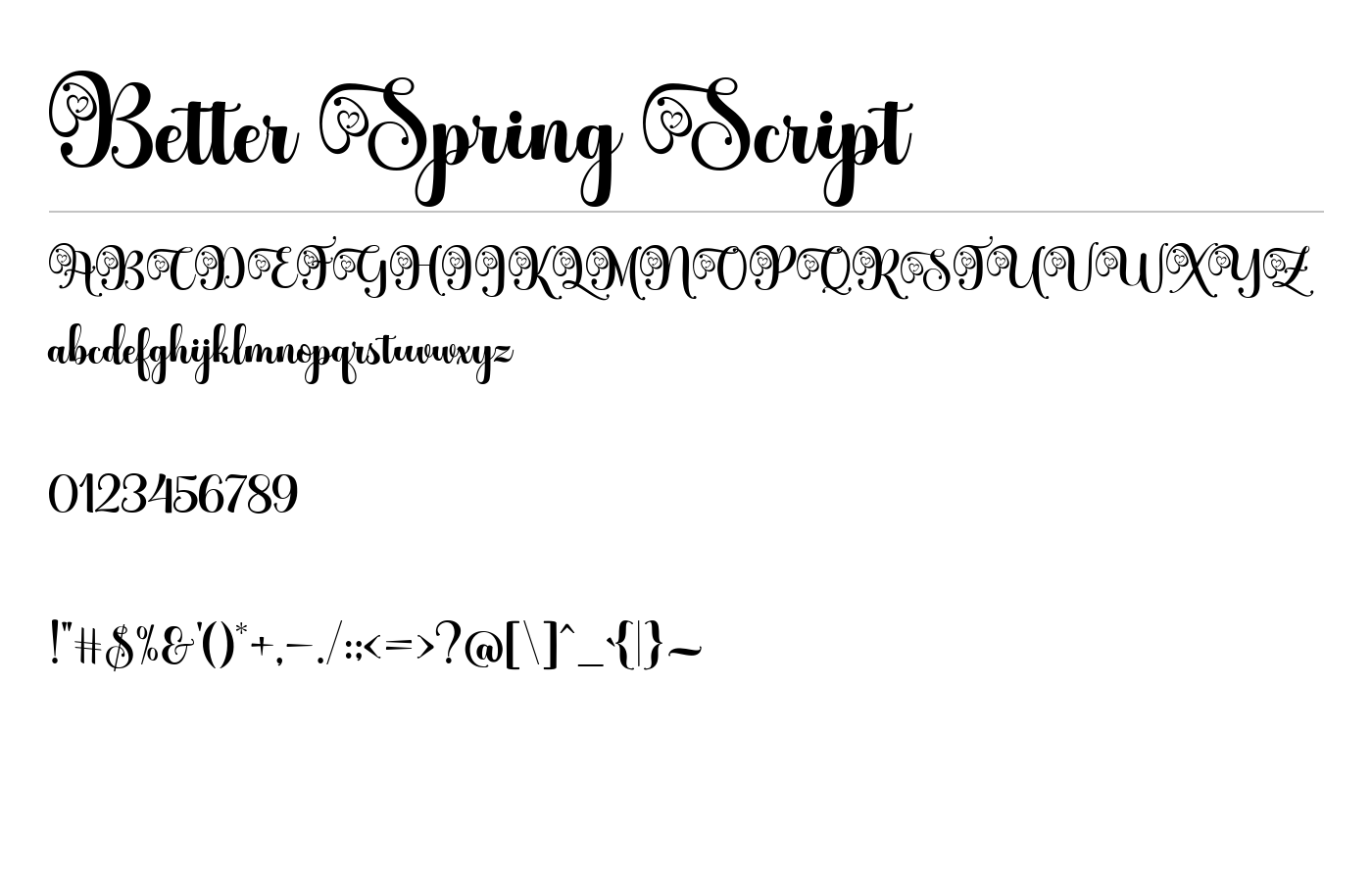
Better Spring Script is a decorative script font that combines elegant, flowing strokes with charming ornamental swirls, especially in its uppercase letters. Its moderately high contrast and unique heart-shaped flourishes give it a playful yet sophisticated personality, making it ideal for invitations, branding, and creative designs that seek a romantic or whimsical touch. This font works best in display settings where its artistic style can truly shine.
Better Spring Script Font
About Better Spring Script Font